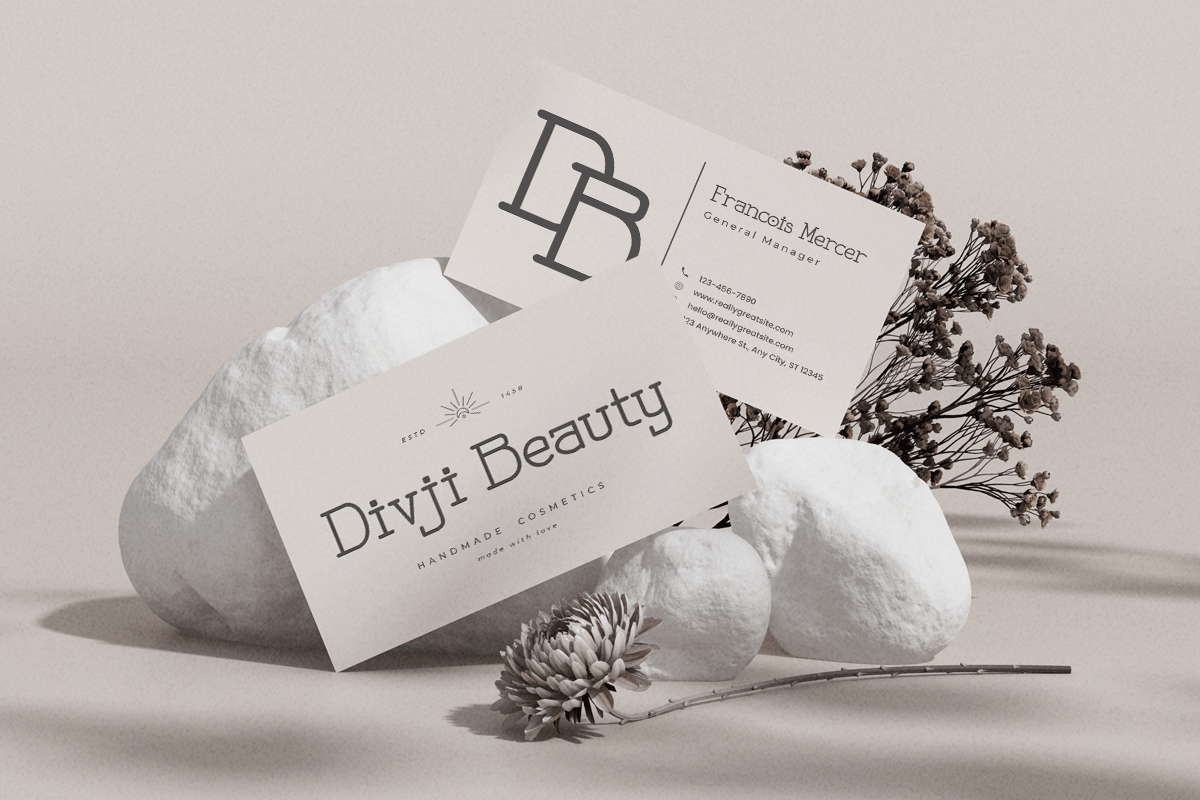
Wistoria Elegant Serif Font provides a new look that is different from serif fonts in general. The characteristics of a serif font have an additional serif still present in this font, but the existing serif follows the actual font shape. Wistoria Elegant Serif Font is a clean, simple, upright-looking serif font. It can also use as cool fonts and modern fonts. Wistoria Elegant Serif Font has many matches when combined with the product. Fashion brand tags will look good with this type of font. There is no need to add excessive pictures and ornaments because Wistoria Elegant Serif Font has presented its identity where a simple yet classic impression radiates. Wistoria Elegant Serif Font is in the list of typefaces that can use as digital fonts and print fonts. This font can use as a title that appears first in intro videos that catch the viewer's attention at a first impression. Posters and magazine cover work well when using Wistoria Elegant Serif Font because even though this font is a serif typeface, it looks clear and legible. Our collection of serif fonts is compatible for use as; Figma Fonts, Canva Fonts, Freepik Fonts, and Adobe Fonts. They also work as Windows Fonts and Apple Fonts. For your social media needs, you can use and install fonts in our Serif font collection to use as Instagram Fonts, Facebook Fonts, and Twitter Fonts.